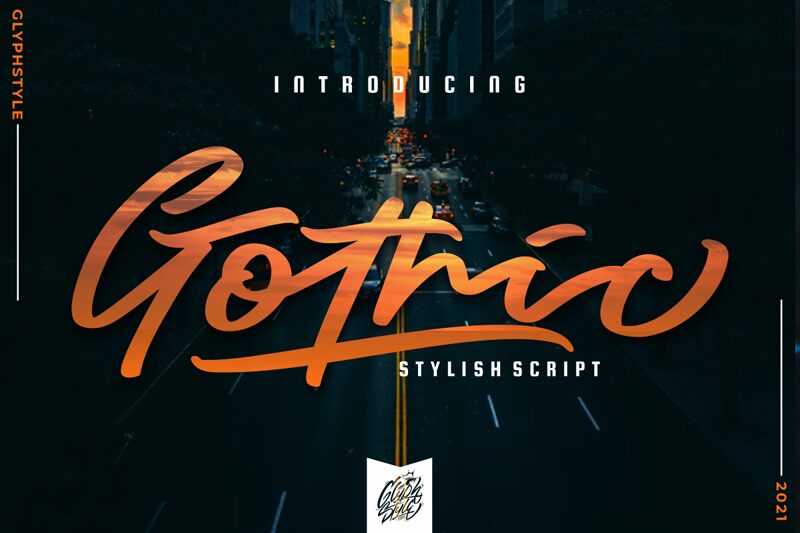
Gothic font by GlyphStyle is a stylish script font. Perfect for creating eye-catching logos, posters, and titles, Gothic font adds unique flair to any creative project.